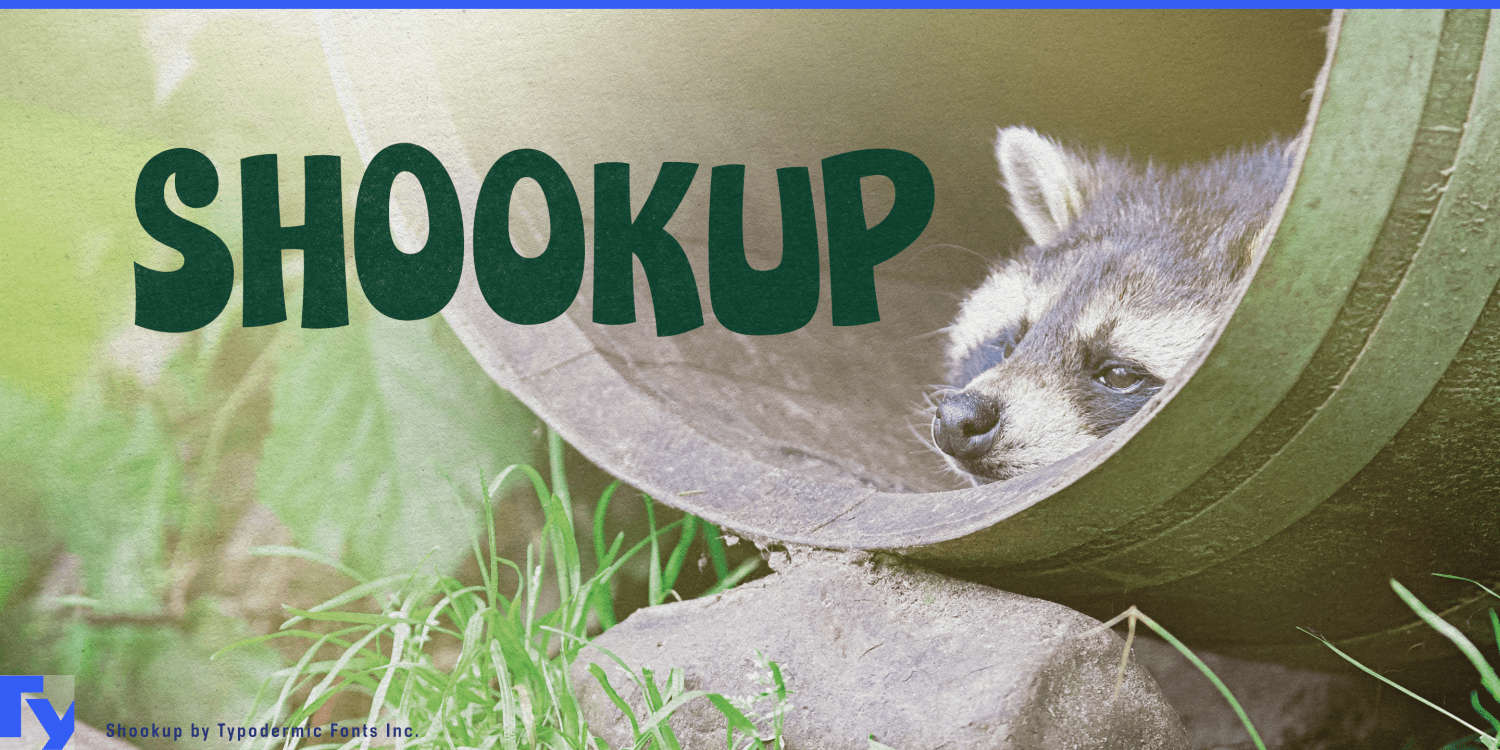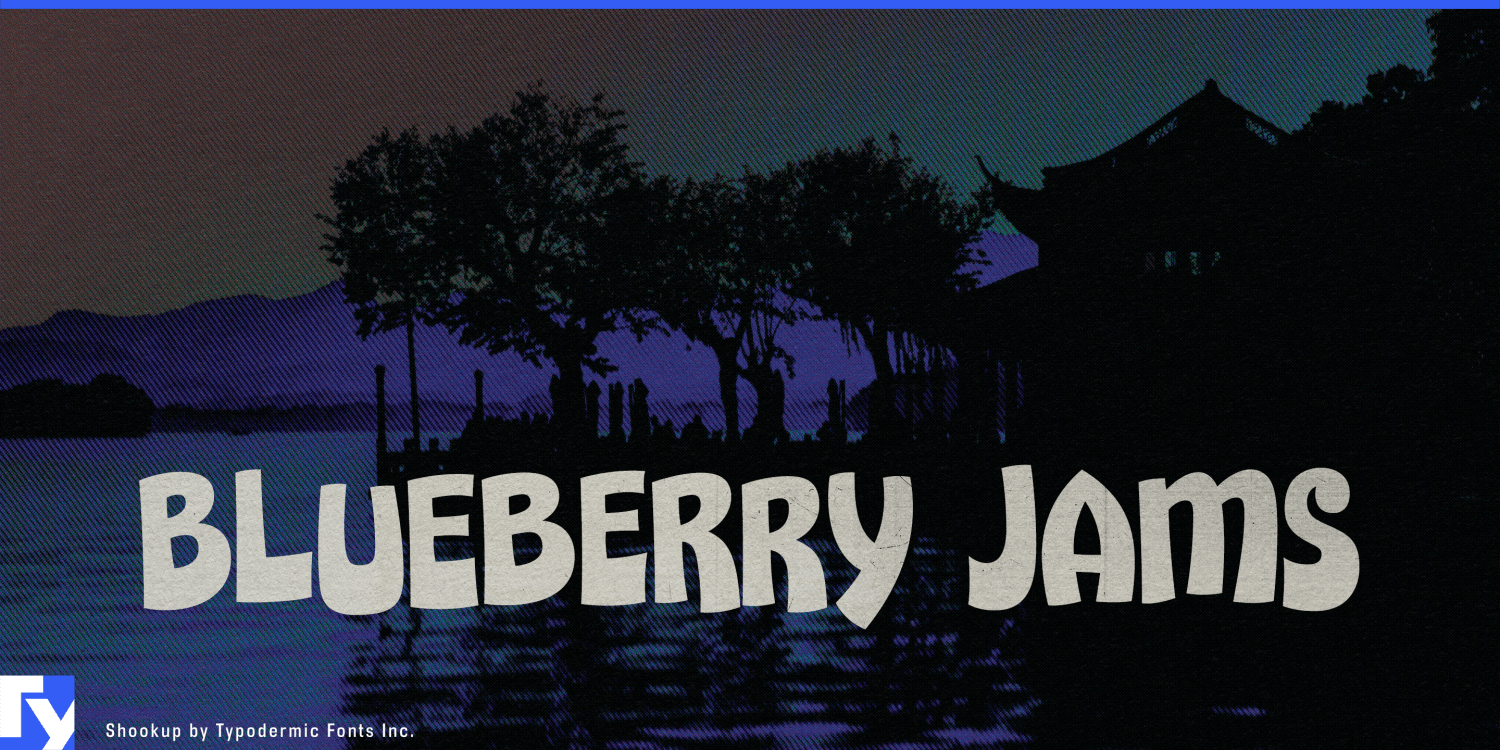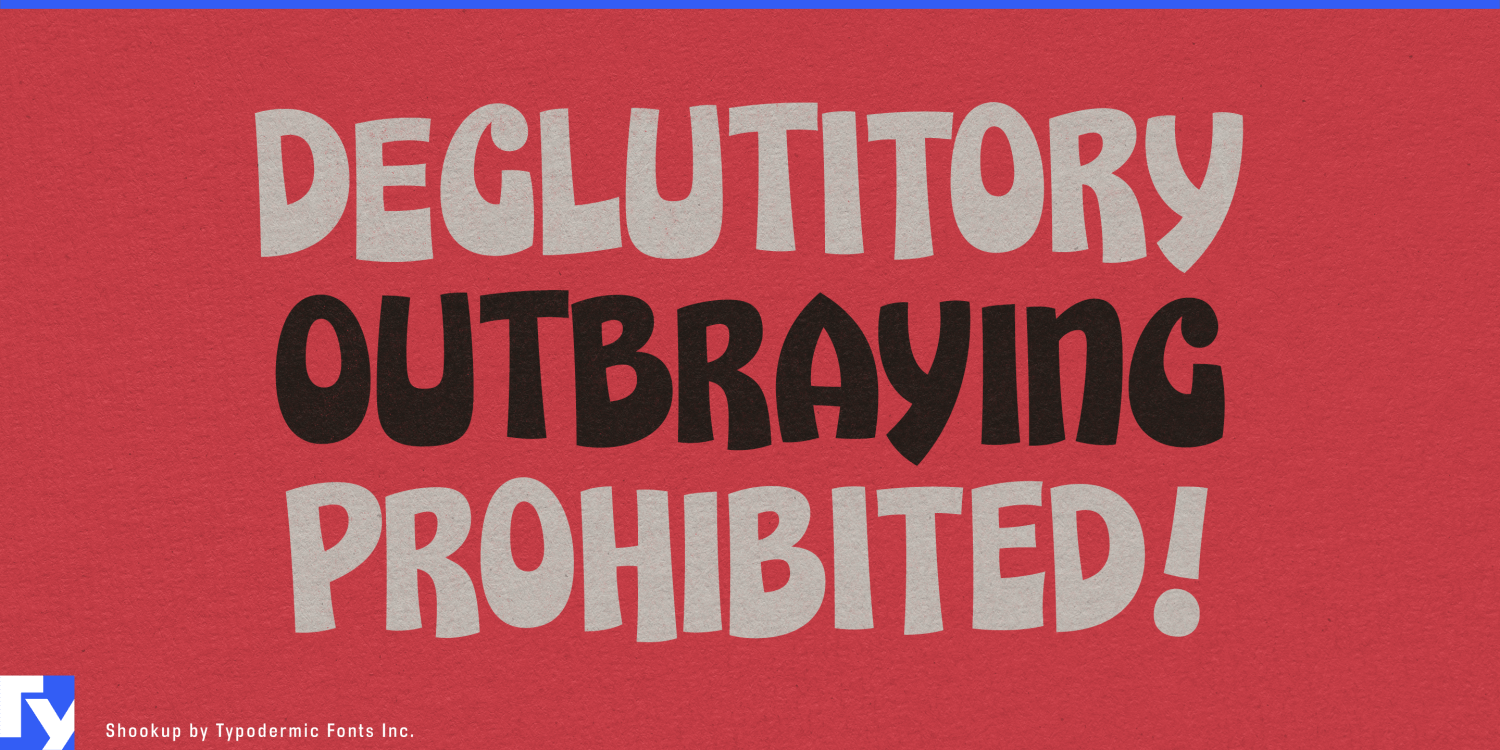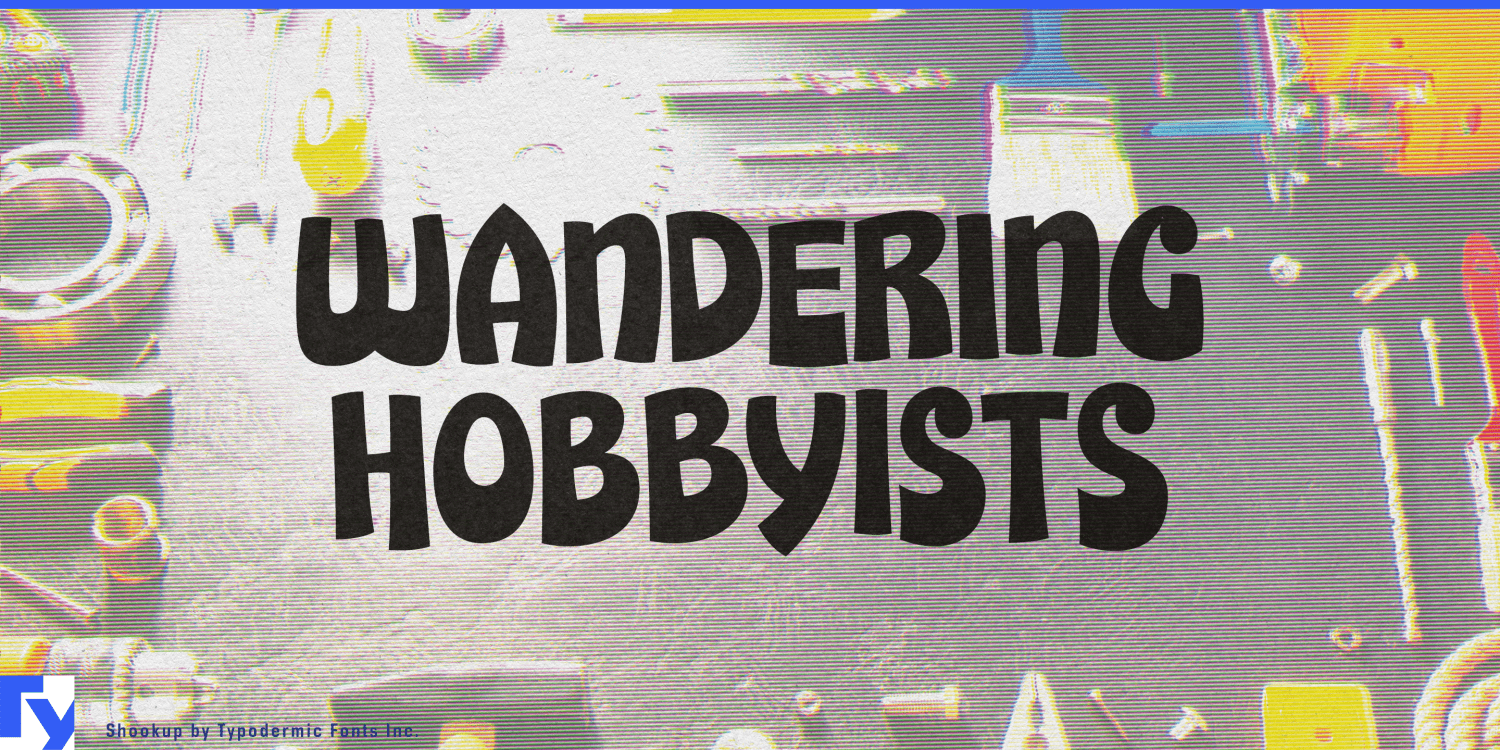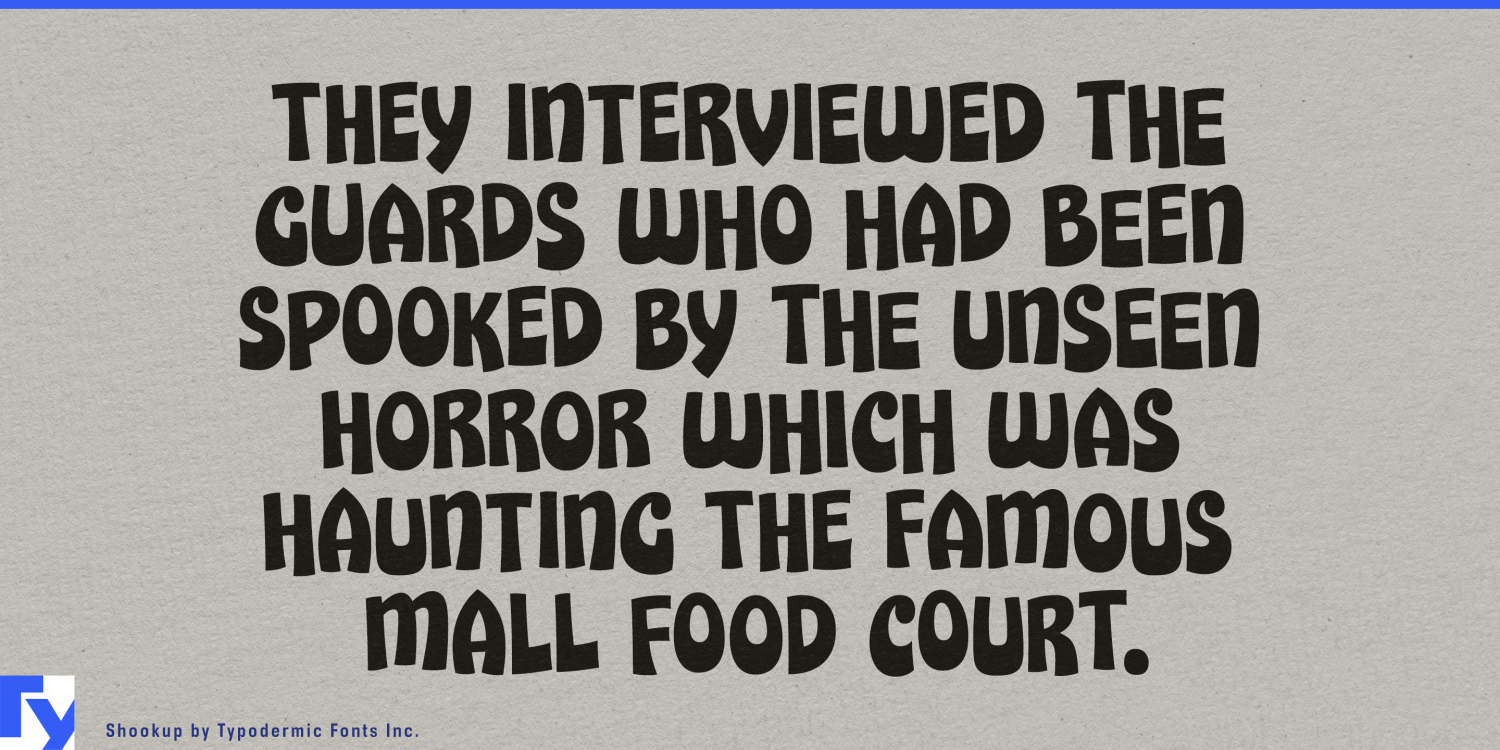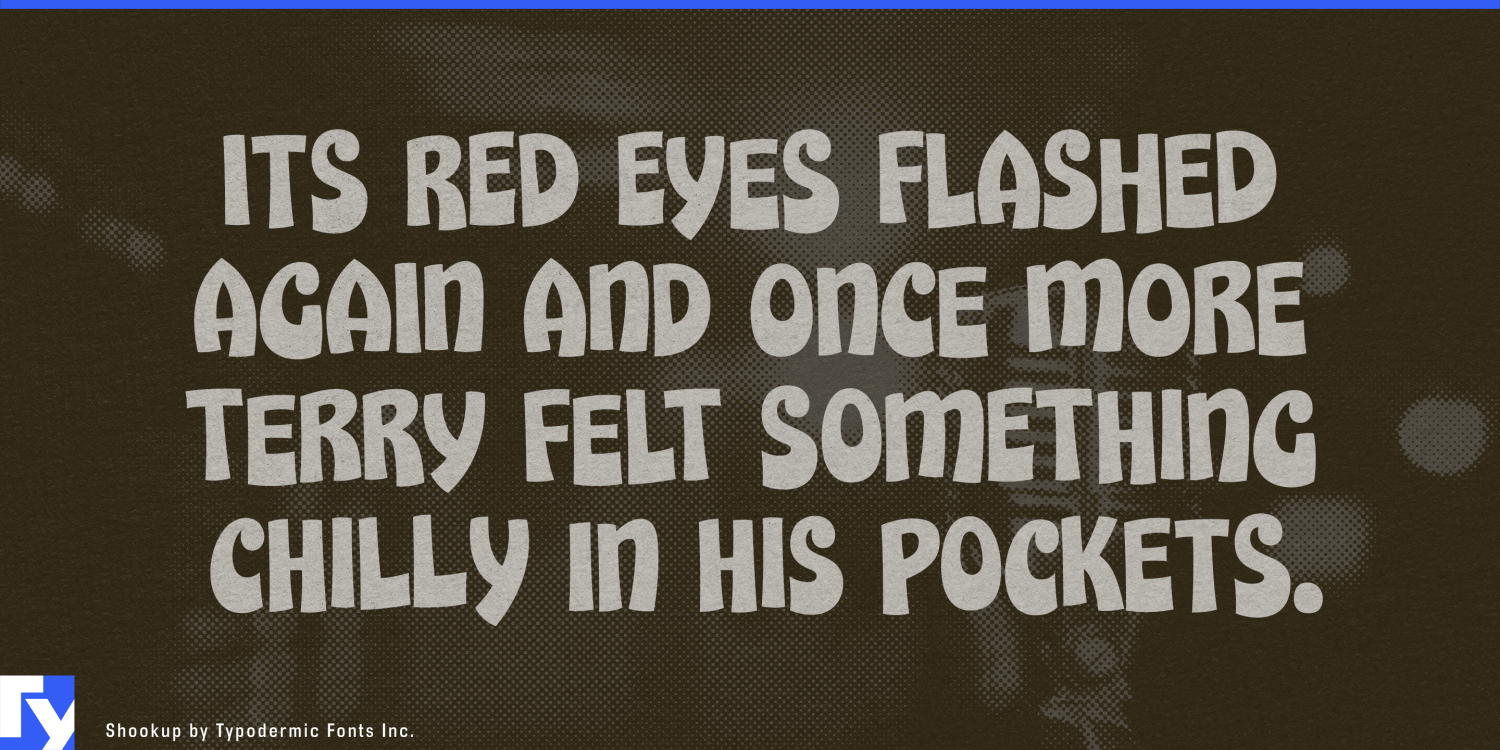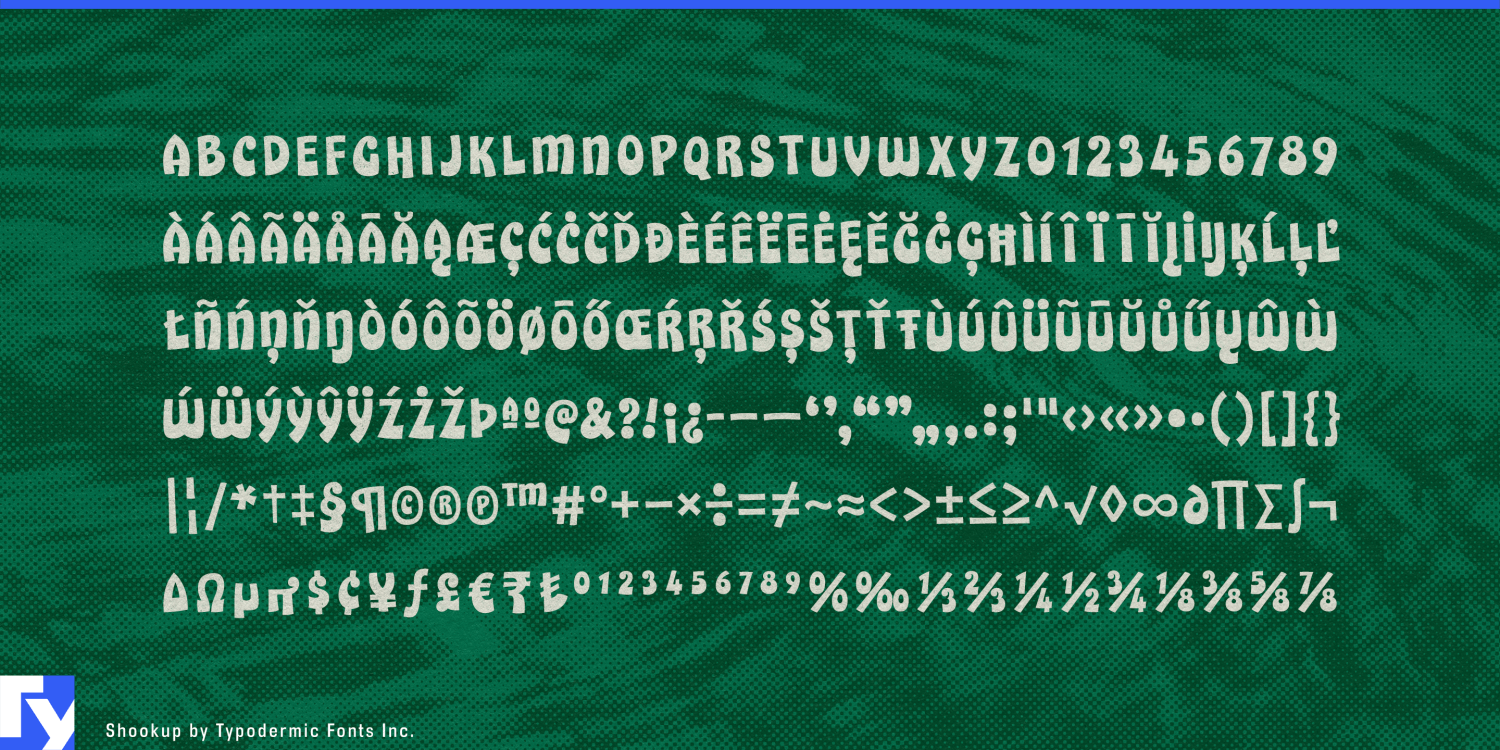
Shookup
Font Family by Typodermic
Kids’ brands need a little disorder. Custom cartoon lettering can provide it, but maintaining that energy across dozens of flavors, products, promotions, and seasonal variants becomes expensive and inconsistent. Ordinary fonts solve the system problem but can quickly start looking stamped out. Shookup lands between the two: chunky display lettering with automatic variation that keeps repeated letters and numerals moving instead of settling into a rigid pattern.
That makes Shookup especially useful for children’s food packaging. Breakfast cereal, fruit snacks, yogurt pouches, cereal bites, lunchbox crackers, cheese snacks, puffed snacks, snack bars, flavored popcorn, juice drinks, and other kid-focused products can use it for brand names, flavors, product variants, promotional bursts, and limited editions. The forms have enough cartoon energy to work beside mascots, bright illustration, strange snack shapes, and crowded supermarket graphics without requiring custom lettering for every SKU.
Better-for-you children’s food is another strong fit. A lower-sugar cereal, fruit snack, or lunchbox product may need to reassure parents, but it still has to look appealing to the child who is going to eat it. Shookup can carry the playful layer while calmer typography handles nutrition, ingredients, and parental information.
Fast-changing flavor systems also benefit from its shifting forms. Sour combinations, fruit mixes, seasonal cereal editions, novelty snack flavors, frozen assortments, and limited product drops can look fresh while remaining recognizably part of the same family.
Frozen treats bring out the same character. Ice pops, sherbet tubes, ice-cream sandwiches, mini cones, frozen yogurt snacks, sundae kits, and family multipacks can use Shookup for flavor names, assortment labels, and promotional graphics that need to feel energetic before the freezer door even opens.
Family-oriented quick-service restaurants offer a larger environment for the same visual language. Burger restaurants, pizza shops, taco concepts, hot-dog restaurants, chicken-finger chains, colorful breakfast concepts, and family diners can use Shookup for kids’ meals, combo names, shake flavors, menu headings, takeout packaging, merchandise, and seasonal promotions.
Shookup draws on the exuberant cereal-package lettering of the late 1960s and early 1970s, but its usefulness is contemporary. It gives large product systems a way to look shaken, rearranged, and redrawn while still behaving like a practical, repeatable font.